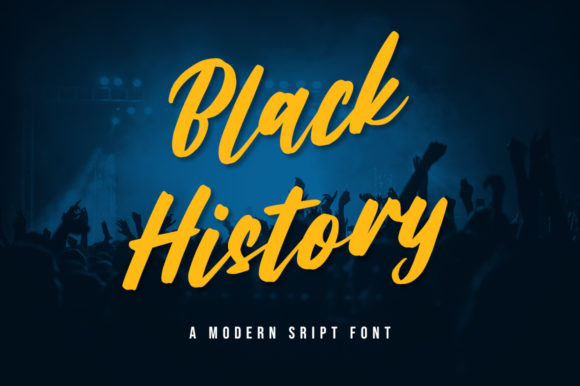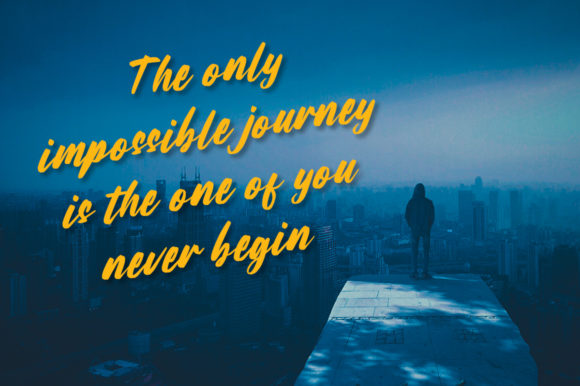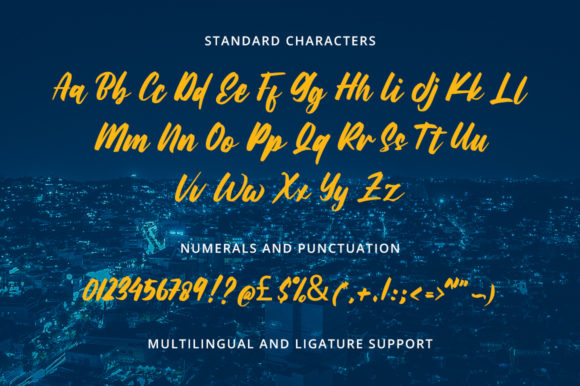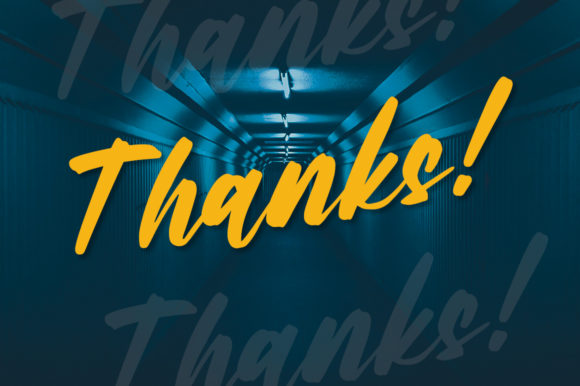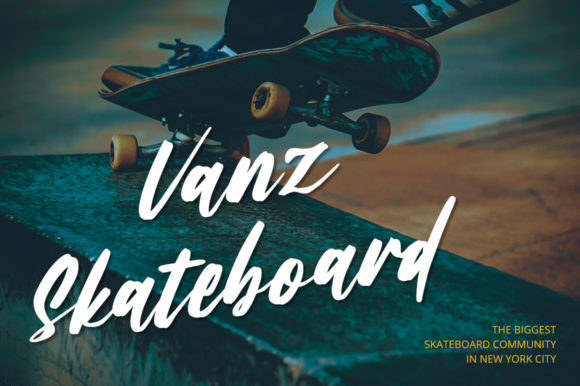
About Black History Font
I’m glad to hear that Black History is a charming and elegant font, perfect for various design projects. Its versatility makes it suitable for a wide range of applications, adding a personal and unique touch to any design. Here are some creative ideas on how to use Black History font to create stunning designs:
1. Black History Month Graphics: Design eye-catching social media graphics, posters, and banners to celebrate Black History Month. Use the font to feature inspiring quotes, historical figures, and messages of empowerment.
2. Wedding Invitations: Create elegant and sophisticated wedding invitations using Black History font to add a touch of personalization and charm.
3. Thank You Cards: Design heartfelt thank you cards with Black History font to express gratitude in a stylish and artistic way.
4. Inspirational Quotes: Use Black History font to create beautifully designed quote graphics with empowering messages, historical quotes, and motivational phrases.
5. Greeting Cards: Design unique and artistic greeting cards for various occasions, such as birthdays, anniversaries, and holidays.
6. Logos and Branding: Incorporate Black History font into logos and branding materials for businesses or organizations that value elegance and a handwritten touch.
7. Business Cards: Create memorable and standout business cards with Black History font for a professional yet charming impression.
8. Book Covers: Use Black History font for book titles or author names on book covers to evoke a sense of sophistication and style.
9. Event Invitations: Design invitations for special events, fundraisers, or parties with Black History font for a touch of elegance.
10. Personal Journals: Use Black History font for journal covers, section headers, or inspirational quotes in personal journals.
11. Stationery: Create personalized stationery sets featuring Black History font for a unique and stylish correspondence.
12. Art Prints: Design art prints with Black History font to showcase historical figures, cultural symbols, or motivational messages.
13. Blog Graphics: Use Black History font in blog headers, featured images, or social media graphics to add a touch of elegance to your content.
14. Educational Materials: Design educational materials with Black History font for classroom posters, handouts, or worksheets.
15. Apparel Design: Incorporate Black History font into apparel designs, such as T-shirts or hoodies, to create fashionable and meaningful clothing items.
16. Cultural Events: Use Black History font for promotional materials and posters for cultural events and celebrations.
17. Social Justice Campaigns: Create impactful graphics and posters for social justice campaigns using Black History font to amplify important messages.
18. Flyers and Brochures: Design eye-catching flyers and brochures for community events, workshops, or fundraisers with Black History font.
19. Podcast Artwork: Use Black History font in podcast artwork or episode graphics to enhance the visual appeal of your podcast.
20. Digital Artwork: Incorporate Black History font into digital art pieces, illustrations, or digital collages for a unique and artistic touch.
In summary, Black History font’s charming and elegant style can enhance a wide array of design projects, allowing you to create stunning and meaningful pieces that leave a lasting impact. Whether you’re celebrating Black History Month, designing wedding invitations, or promoting social justice campaigns, the versatility of Black History font makes it a valuable asset for your creative endeavors.